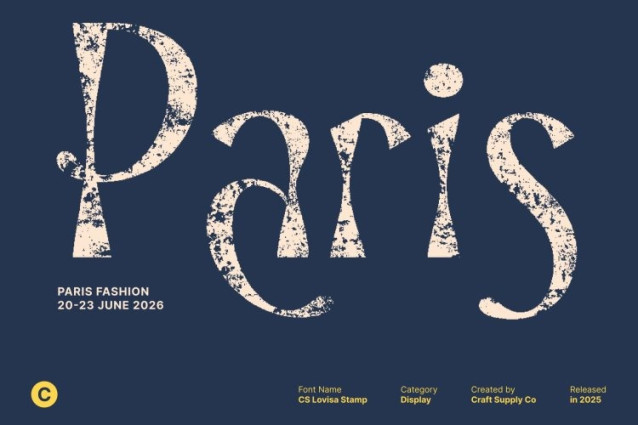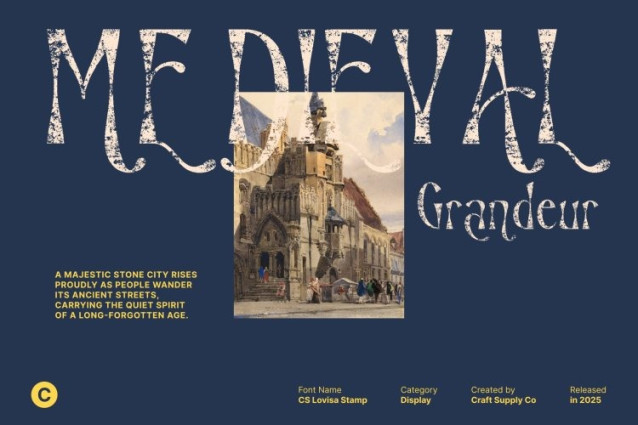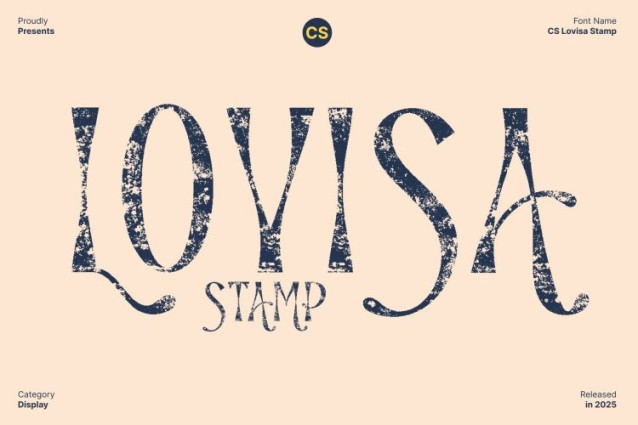
CS Lovisa Stamp Font
CS Lovisa Stamp Font This font radiates imagination with its lively, fantasy-inspired letterforms. Each character carries playful details that spark curiosity and creativity, making the font feel magical, energetic, and full of personality. Its expressive style instantly brightens any layout, adding a sense of wonder and storytelling.
Playful Details for Unique, Eye-Catching Design
Crafted as a display font, stands out with its quirky forms and whimsical rhythm. The playful construction ensures strong visual appeal, transforming titles and headlines into memorable focal points. Perfect for designers who want a font that feels joyful, unique, and creatively bold.
Vintage Personality Through Stamp Texture
The added stamp texture enriches the font with a warm, handcrafted touch. This vintage surface detail adds depth and character, blending perfectly with the font’s fantastical nature. The textured finish makes each letter feel alive both nostalgic and spirited at the same time.
Perfect for Whimsical Branding, Posters, and Creative Visuals
This font thrives in imaginative design environments fairy-tale branding, playful posters, handcrafted packaging, or vintage-inspired artwork. Its combination of fantasy charm, expressive shapes, and textured personality creates a captivating look that elevates any creative project.